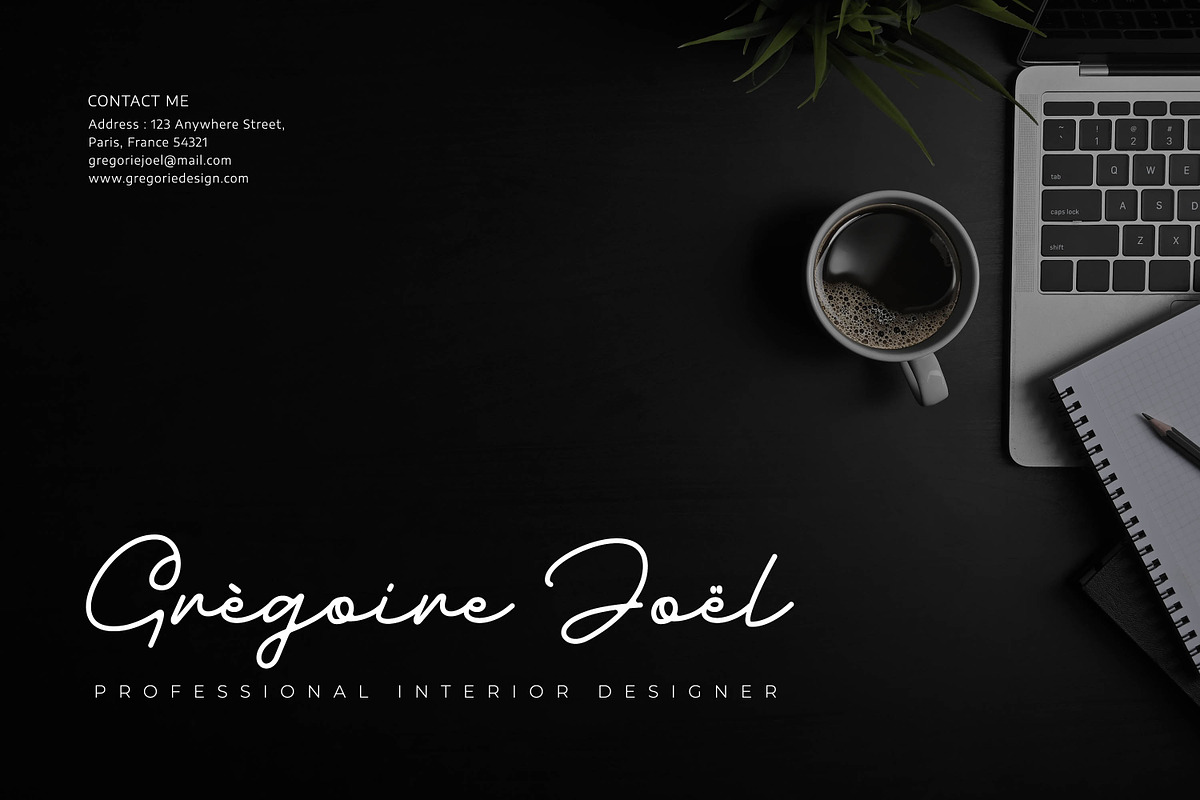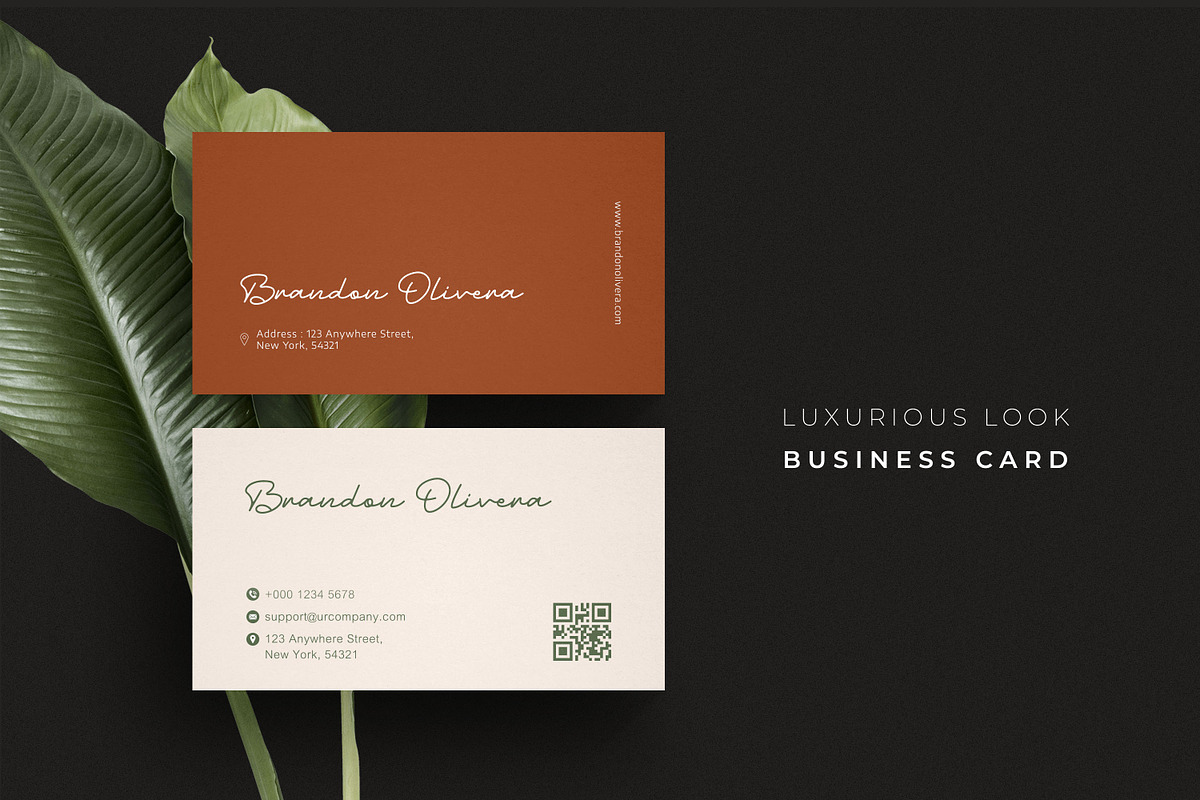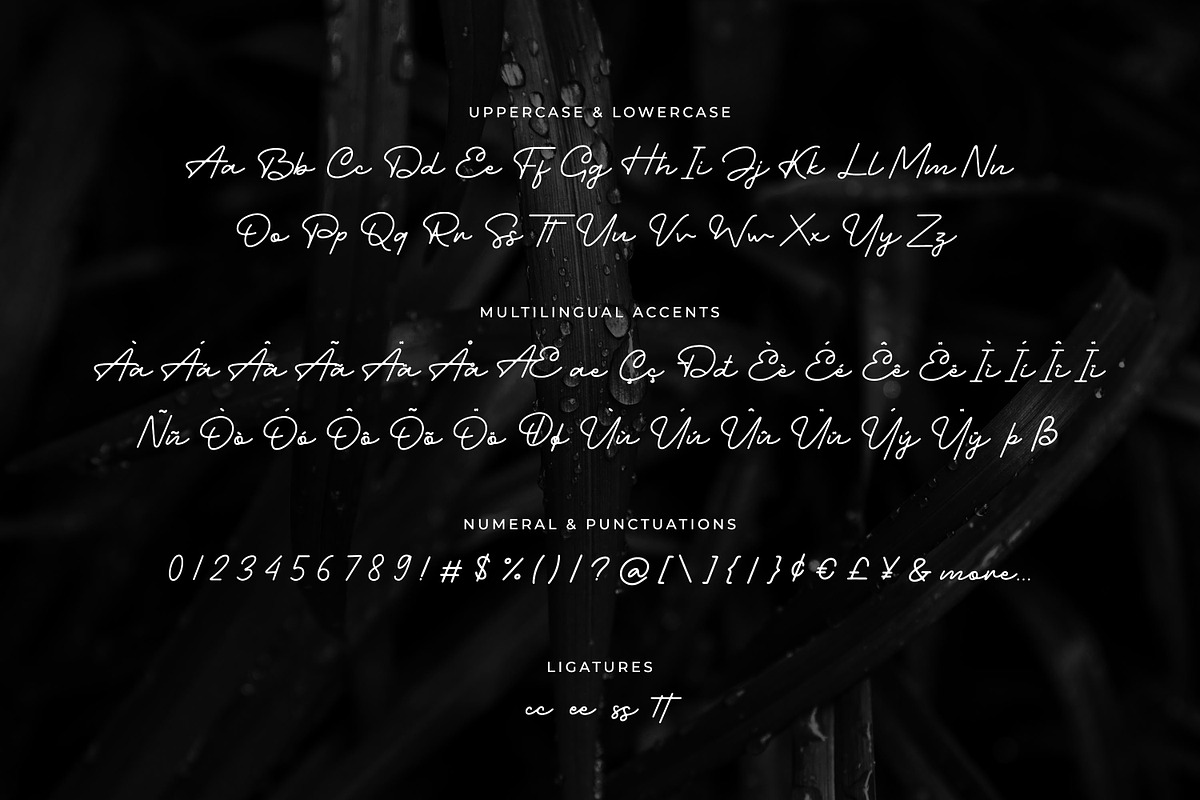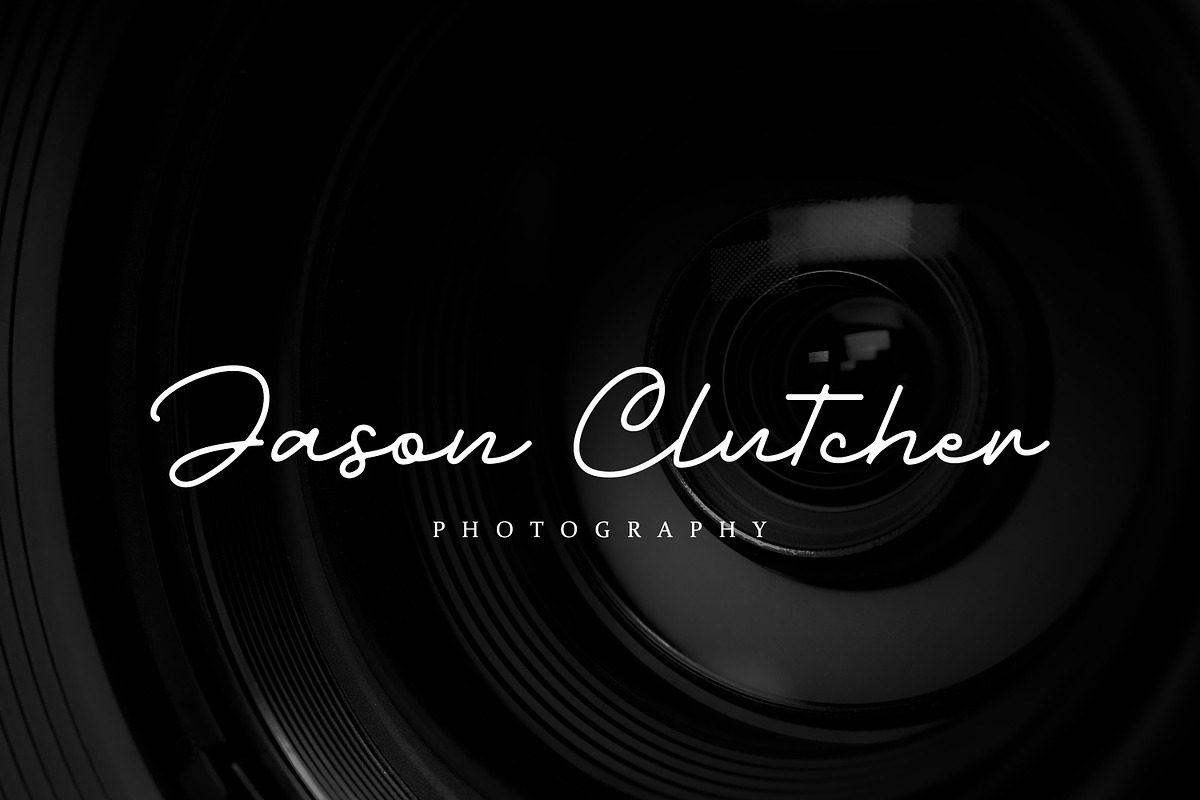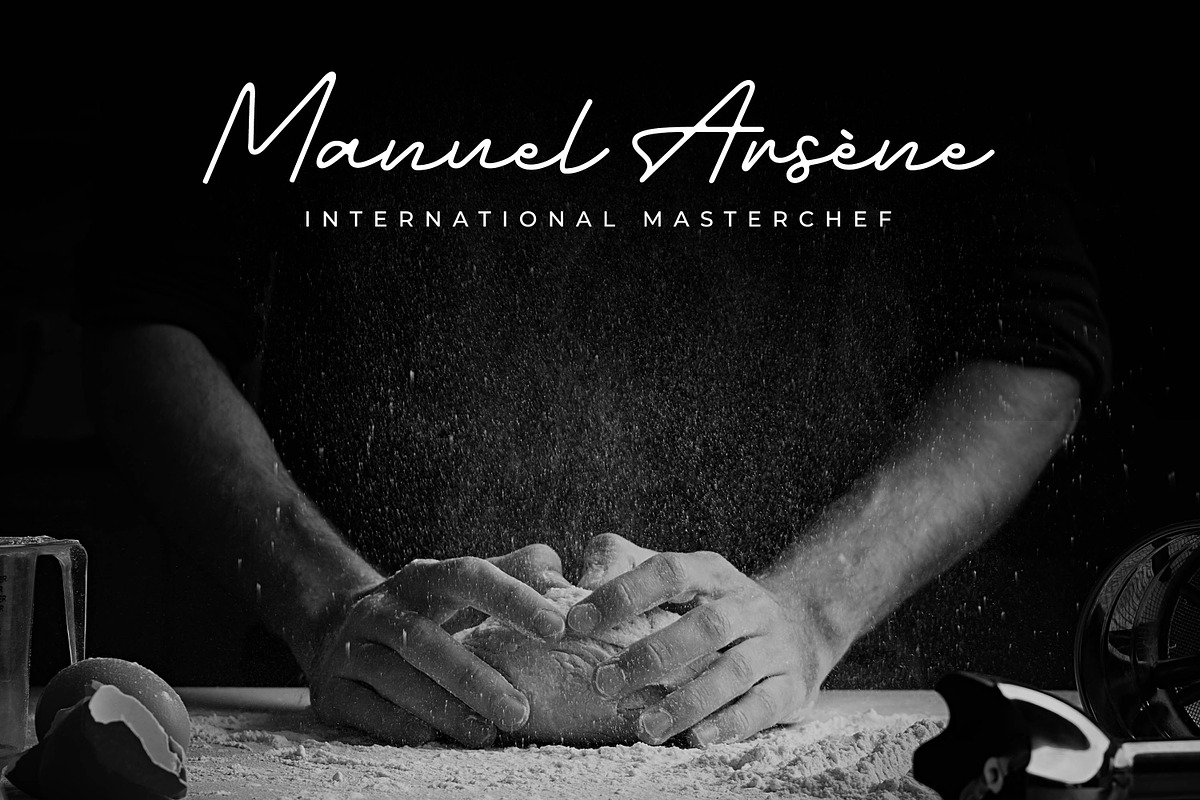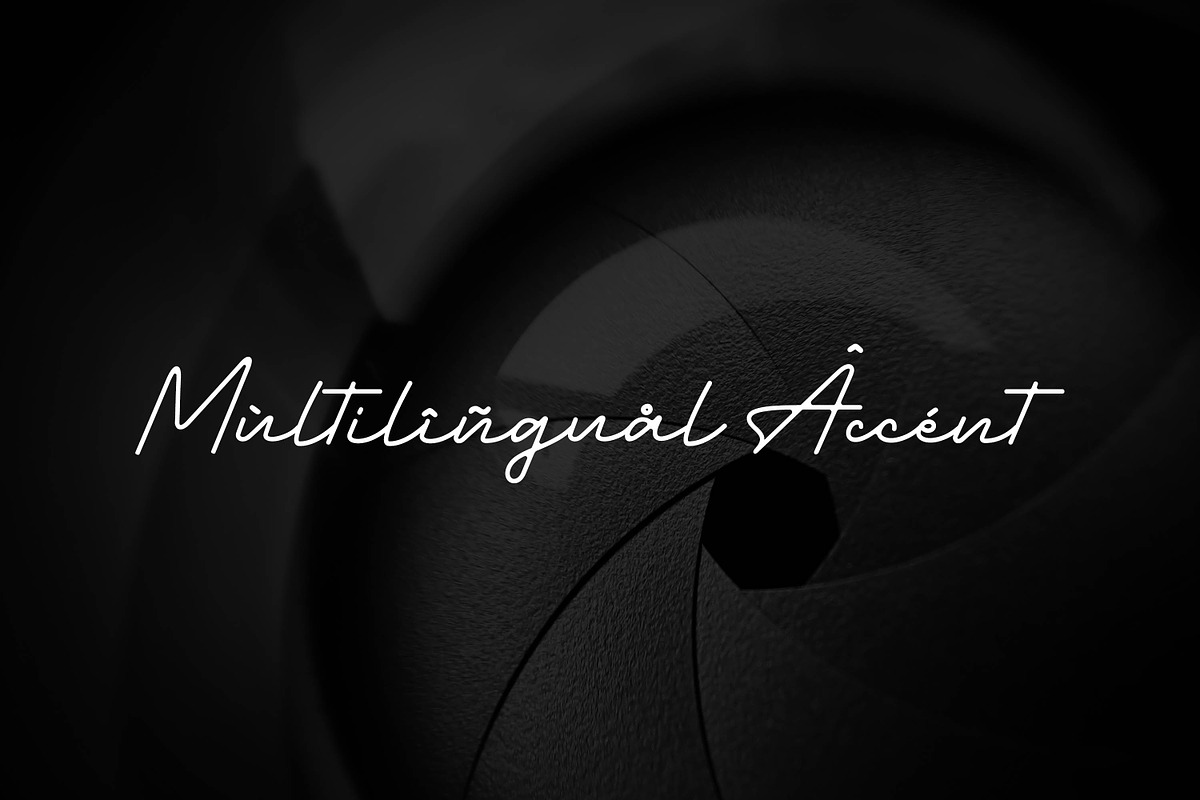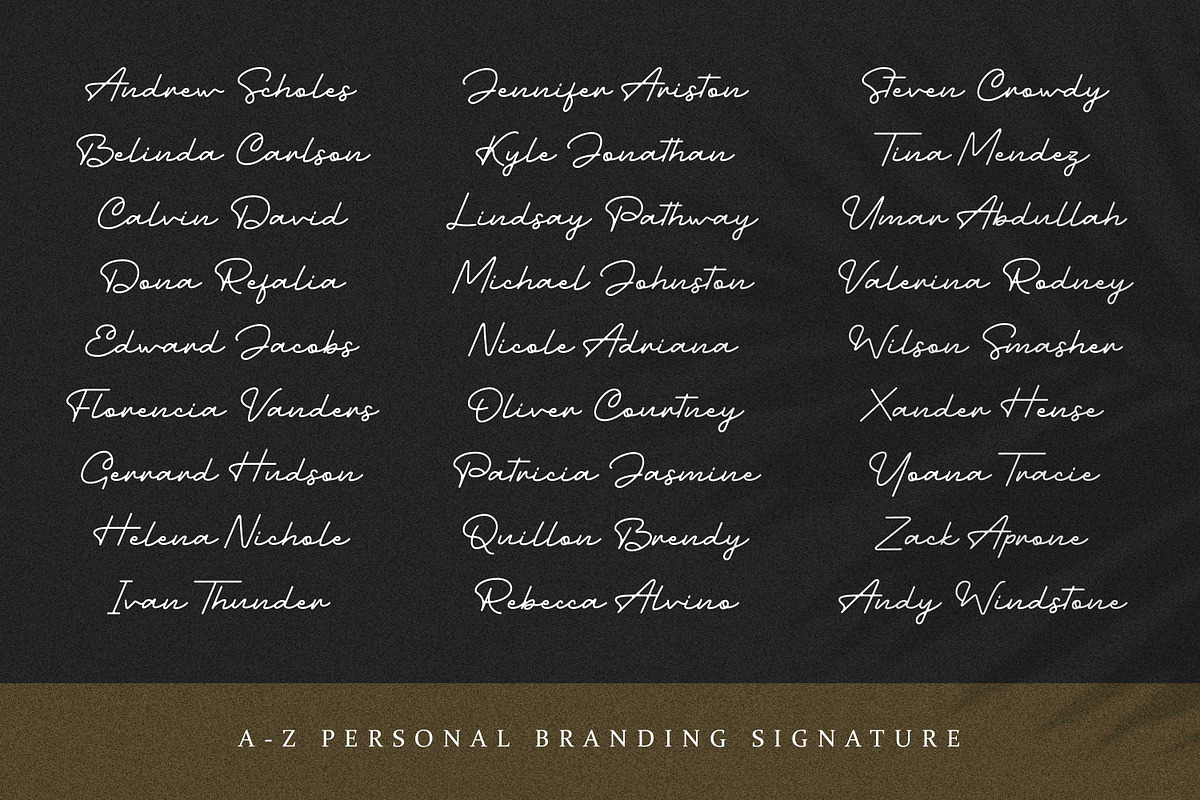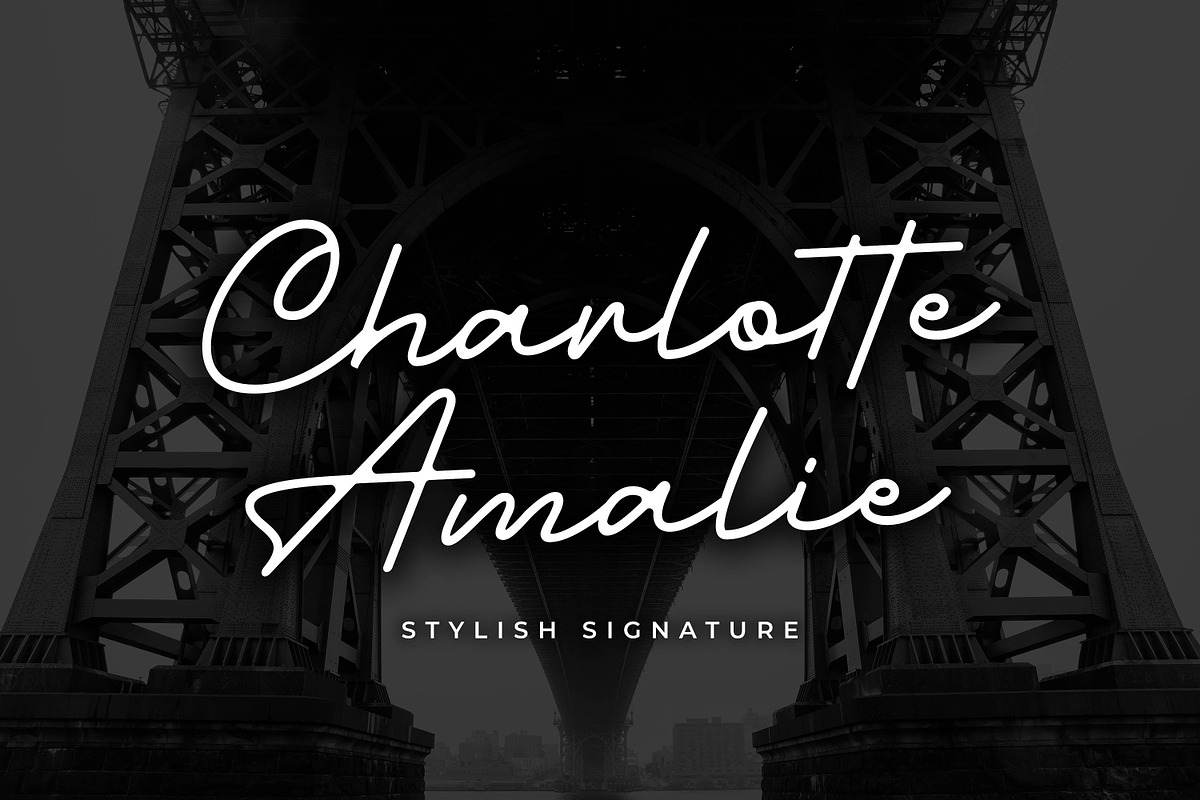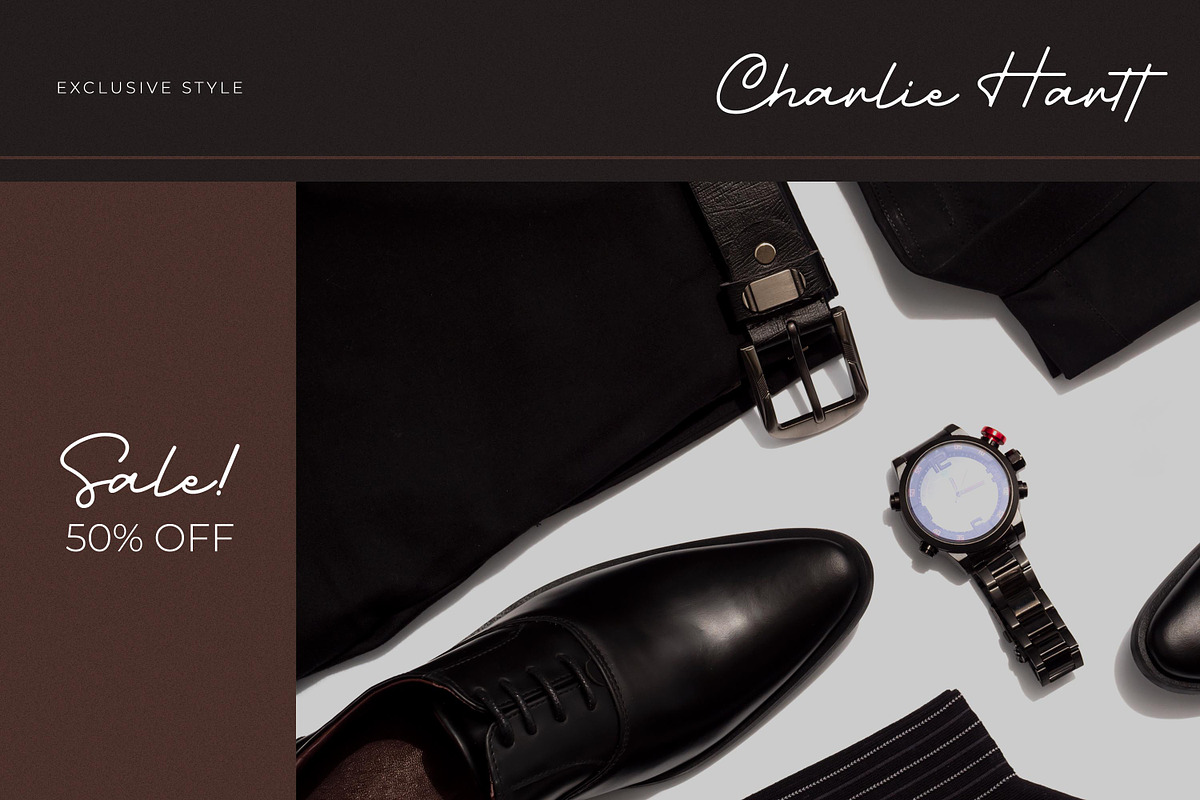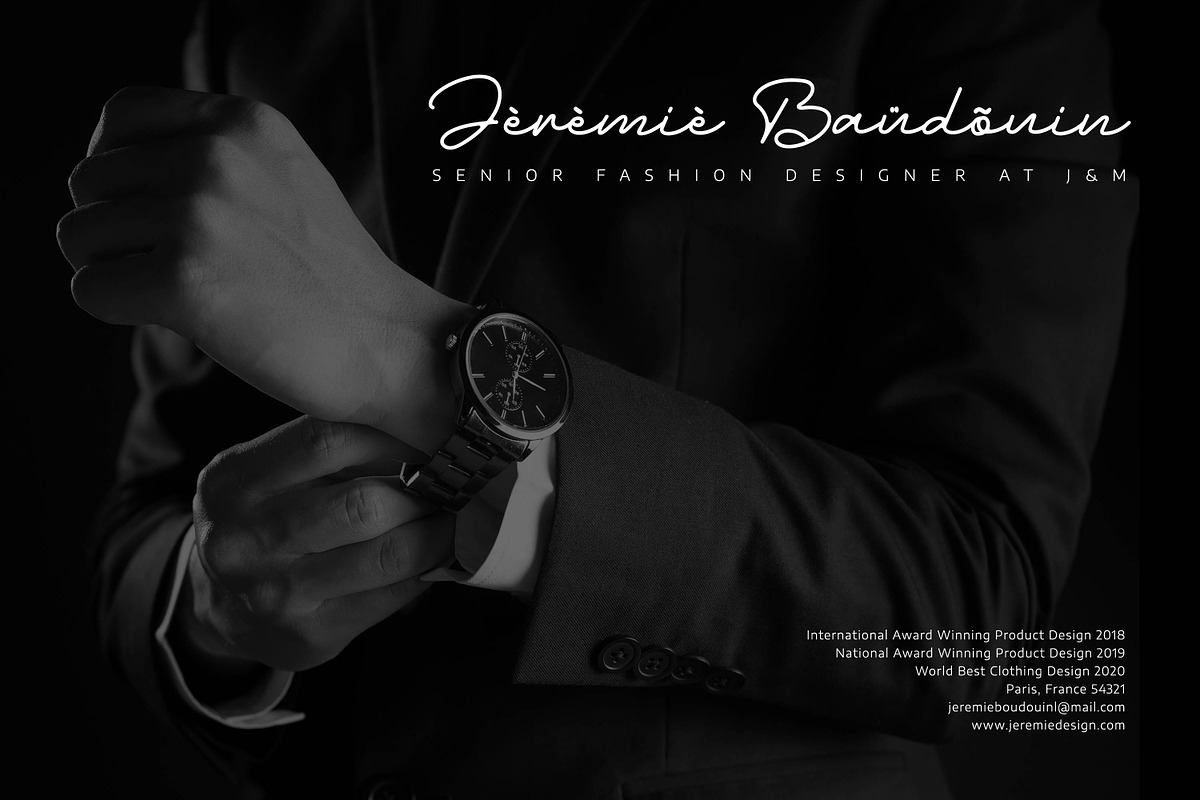
Charlotte Amalie - Stylish Signature
Charlotte Amalie – Stylish Signature and classy style, this font is great for your creative projects such as watermark on photography, and perfect for logos & branding, photography, invitation, watermark, advertisements, product designs, stationery, wedding designs,label, product packaging, special events or anything that need handwritting taste.